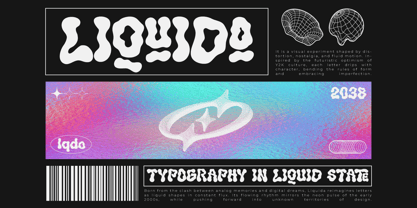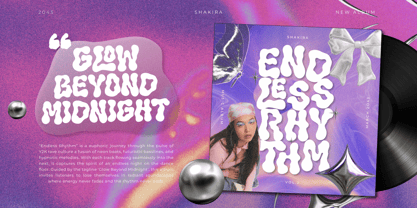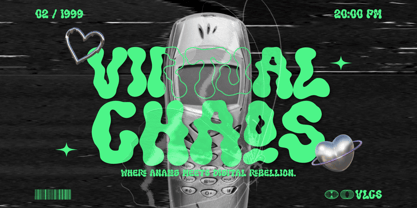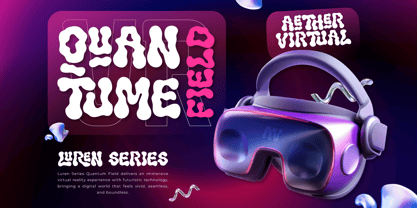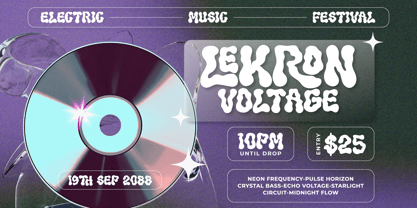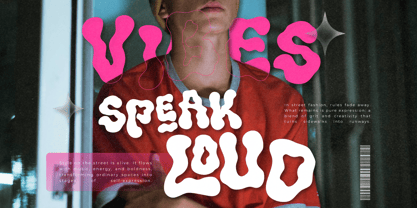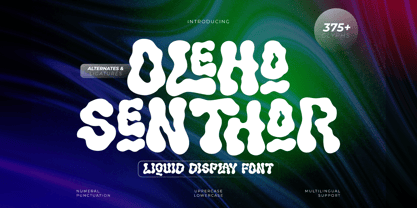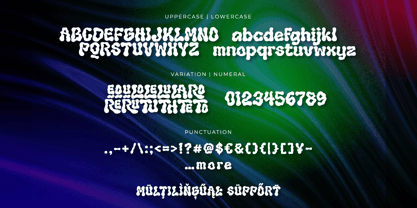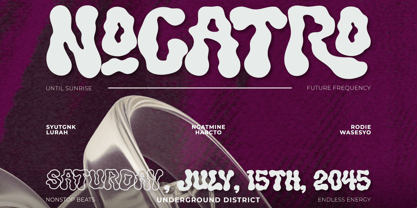
Oleho Senthor – Y2K Liquid Display Font is a bold and unique typeface inspired by liquid, melting shapes, and Y2K retro vibes. Its playful and fluid letterforms bring an eye-catching and energetic touch, making it perfect for creative projects that stand out.
Featuring 375+ glyphs, including alternates, ligatures, numerals, punctuation, and full multilingual support, this font gives you flexibility and endless design possibilities.
Perfect for:
Music posters, album covers, and festival visuals
Fashion, streetwear, and lifestyle branding
Social media graphics, flyers, and packaging design
Magazine titles, creative logos, and digital artworks
If you’re looking for a bold, retro-modern, and expressive display font, Oleho Senthor is the ideal choice to elevate your design projects with a unique liquid twist.
- Multilingual Support: Fully supports 85+ languages, including:
Afrikaans, Albanian, Asu, Basque, Bemba, Bena, Breton, Catalan, Chiga, Cornish, Croatian, Czech, Danish, Dutch, Embu, English, Esperanto, Estonian, Filipino, Finnish, French, Friulian, Galician, Gusii, Hungarian, Indonesian, Irish, Italian, Kabuverdianu, Kalenjin, Kamba, Kikuyu, Kinyarwanda, Latvian, Lithuanian, Lower Sorbian, Luo, Luxembourgish, Luyia, Machame, Makhuwa-Meetto, Makonde, Malagasy, Maltese, Manx, Meru, Morisyen, North Ndebele, Norwegian Bokmål, Norwegian Nynorsk, Nyankole, Oromo, Polish, Portuguese, Quechua, Romanian, Romansh, Rombo, Rundi, Rwa, Samburu, Sango, Sangu, Scottish Gaelic, Sena, Serbian, Shambala, Shona, Slovak, Slovenian, Soga, Somali, Spanish, Swahili, Swedish, Swiss German, Taita, Teso, Turkish, Upper Sorbian, Uzbek (Latin), Volapük, Vunjo, Walser, Zulu.